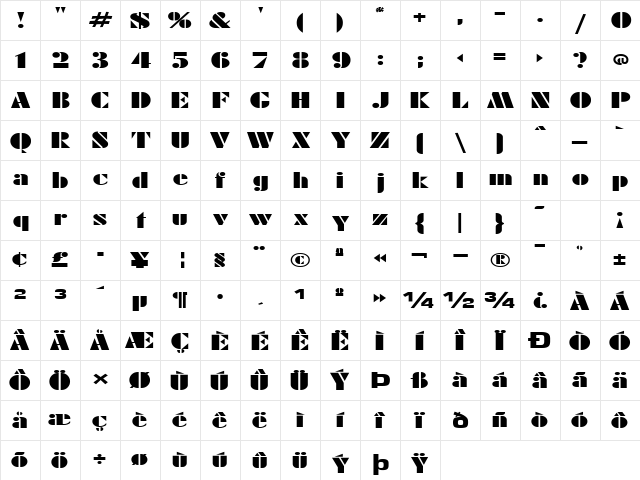
VerticalSmudge94 Regular
Complete VerticalSmudge94 Regular glyph index. Displaying only characters natively supported by VerticalSmudge94 Regular font.
Design Context for VerticalSmudge94
VerticalSmudge94 is a composed and adaptable typeface that performs quietly and consistently across a wide range of design contexts.